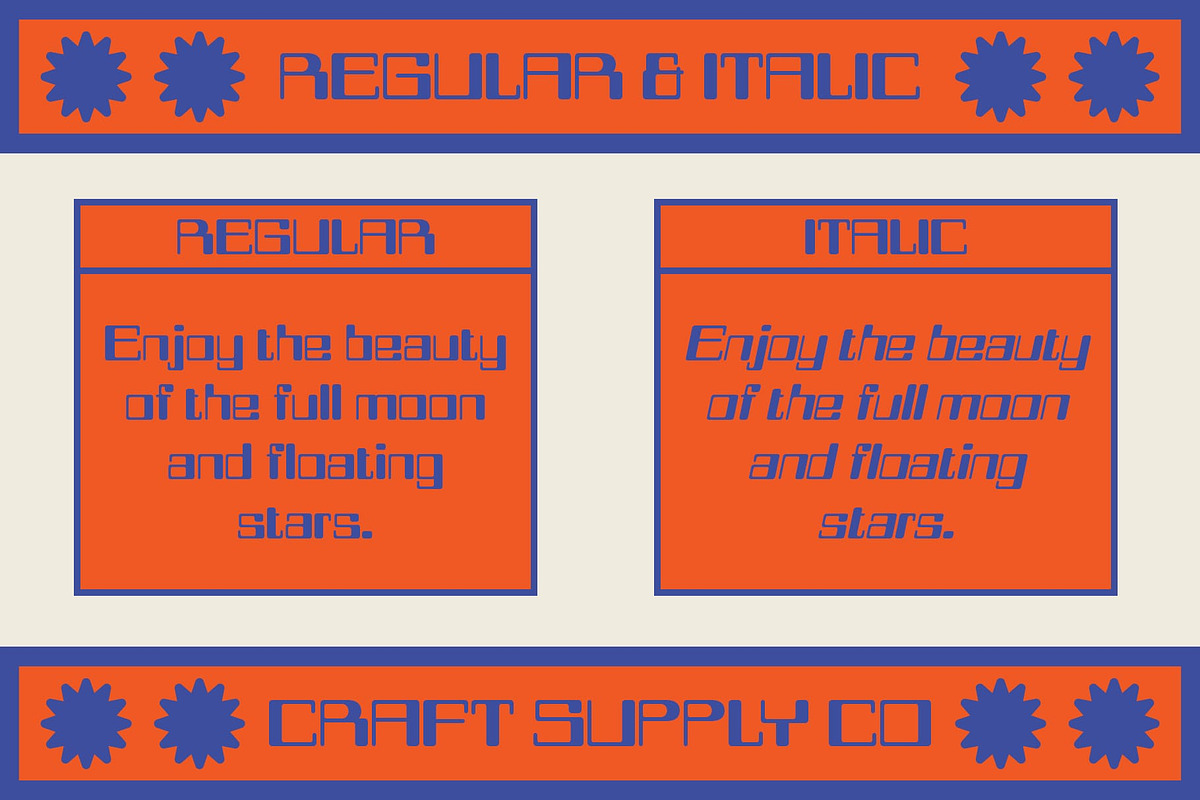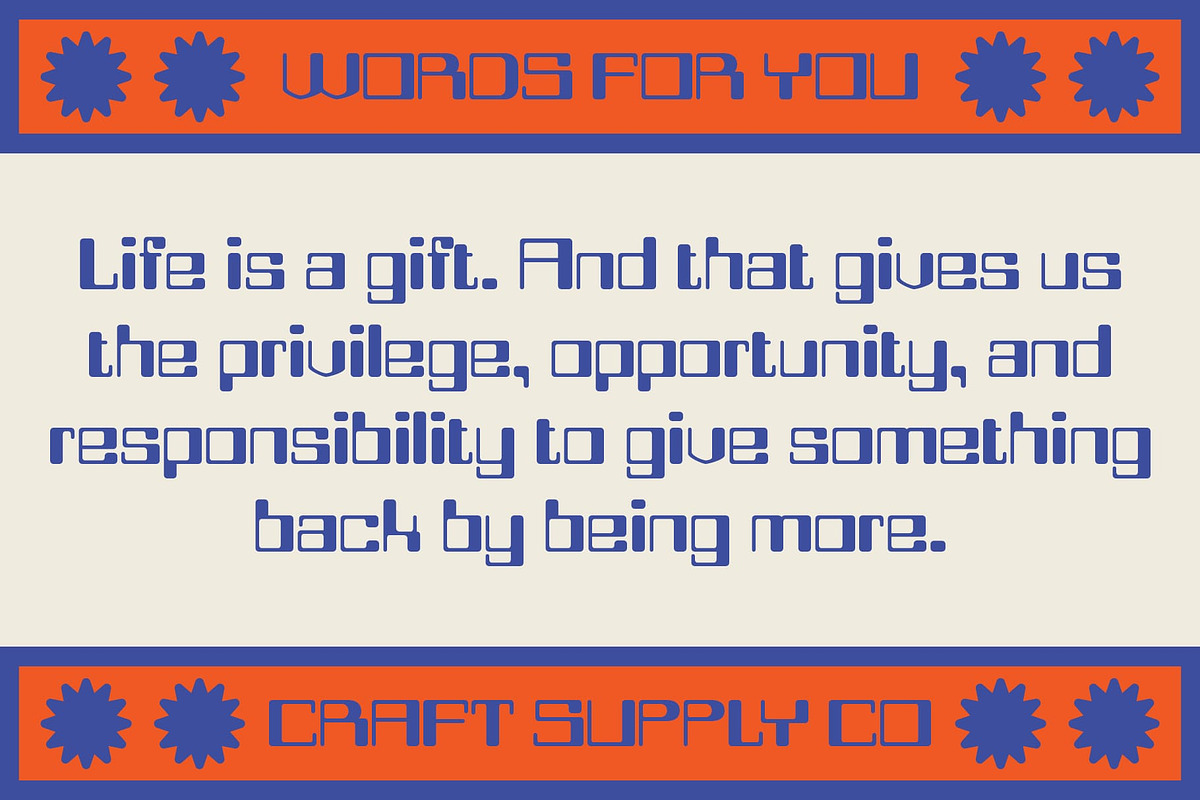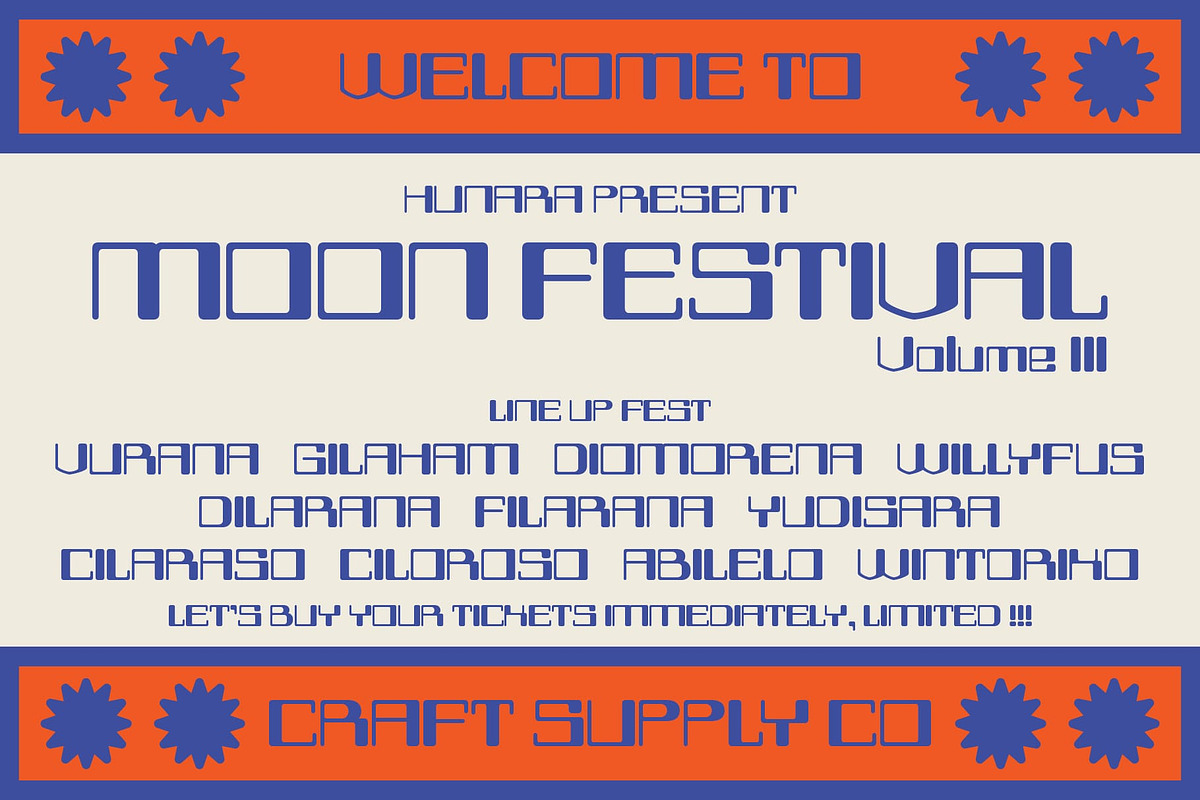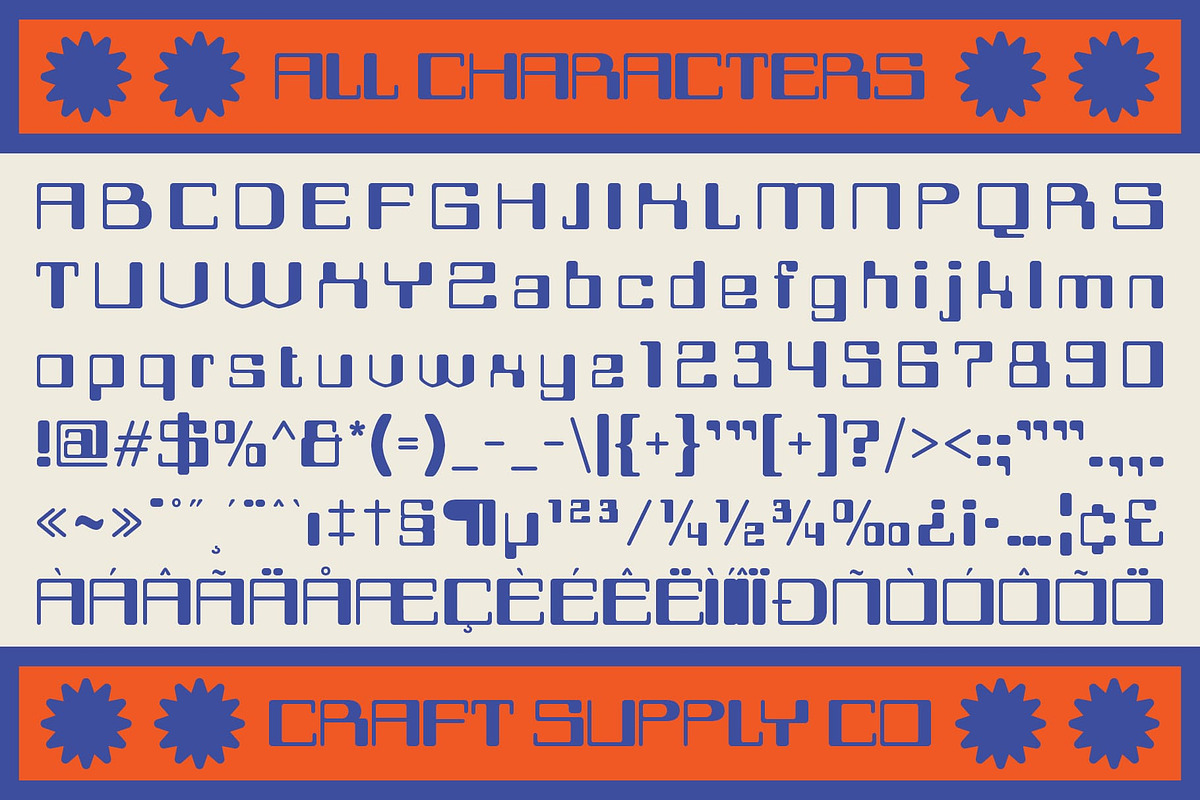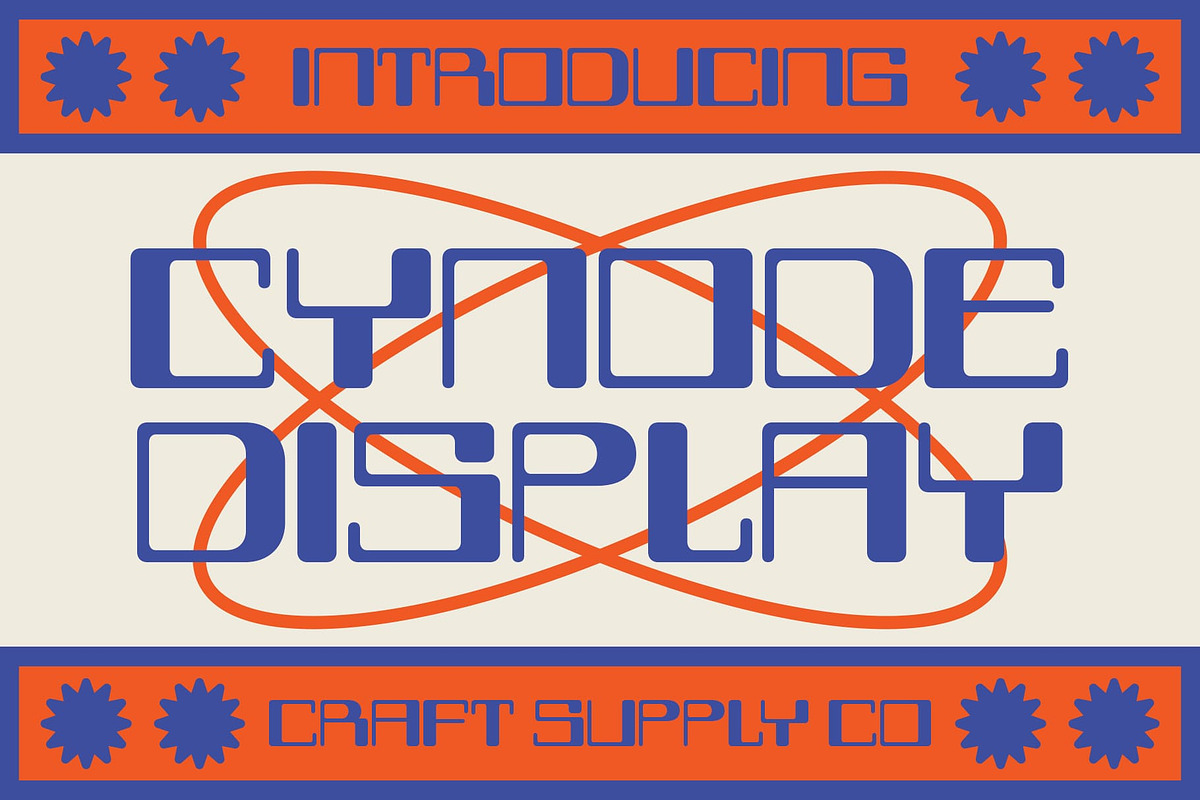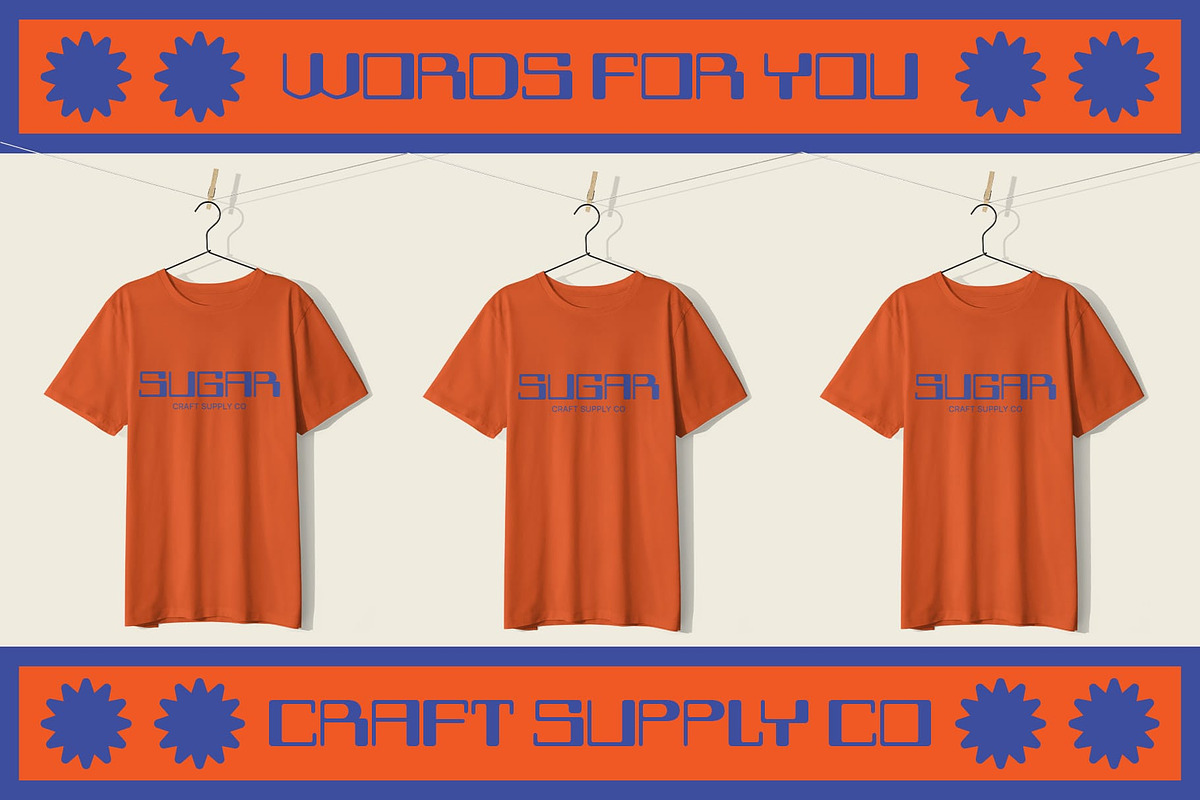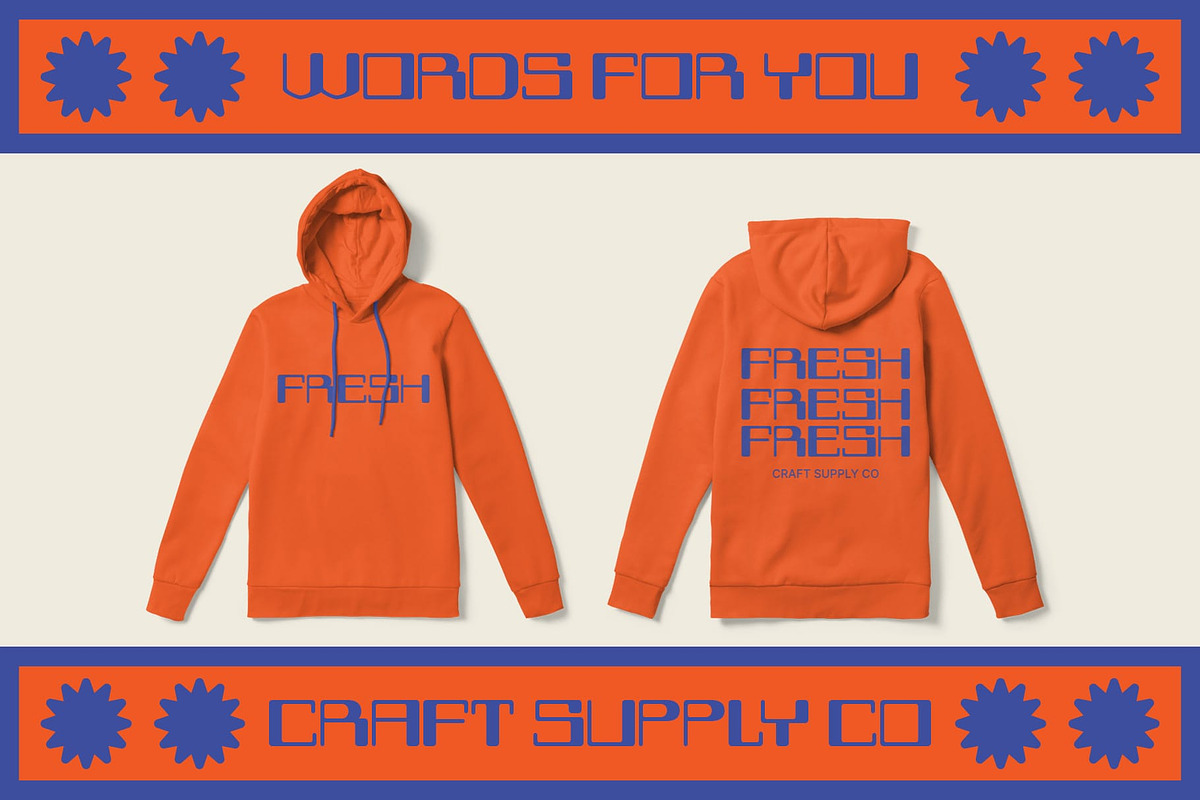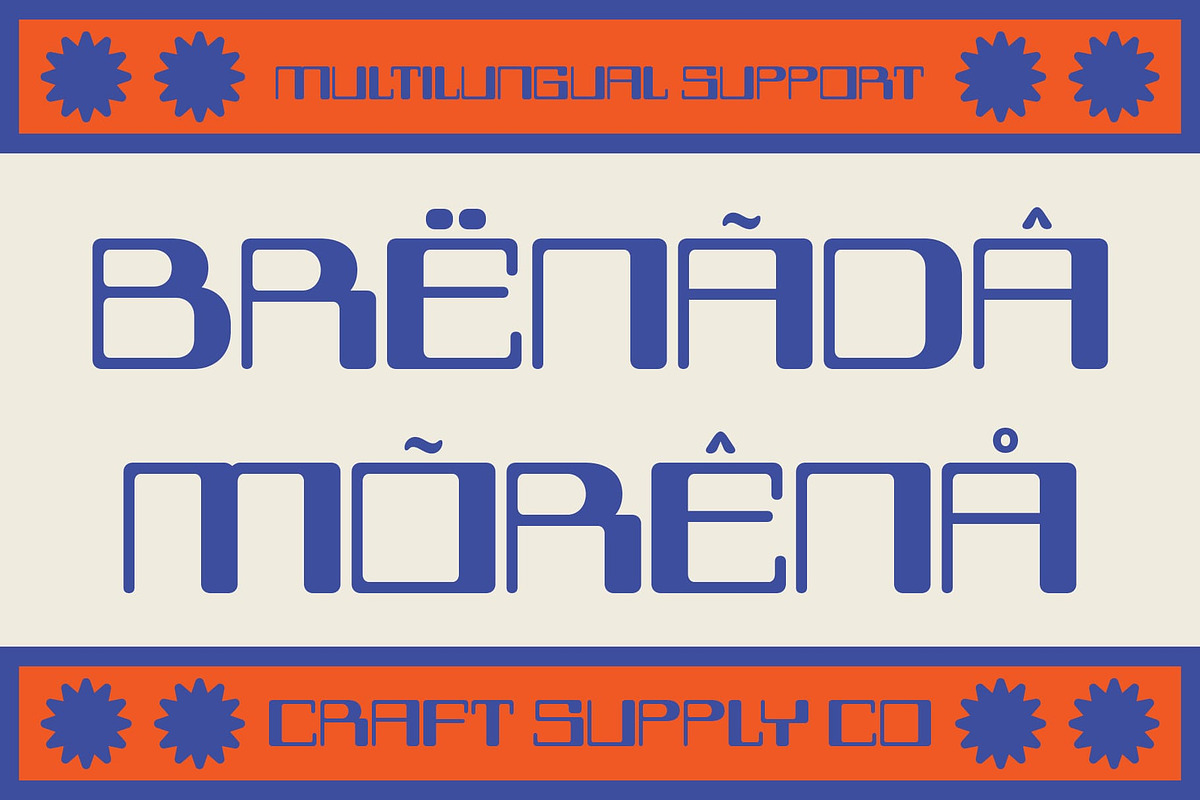
Cynode
Cynode: Embracing Futuristic Geometry
Modern Square Display Cynode presents a modern take on display fonts, characterized by its square-shaped design elements. These bold and angular characters exude a sense of contemporary style, making them ideal for projects seeking a sleek, cutting-edge aesthetic.
Inspired by Future Living Drawing inspiration from the envisioned lifestyles of the future, This font captures the essence of innovation and progress. Its geometric forms reflect the geometric landscapes of tomorrow, embodying the spirit of advancement and forward-thinking design.
Sleek and Minimalist With its clean lines and minimalist aesthetics, This font offers a sleek appearance that aligns perfectly with modern design sensibilities. Its simplicity enhances readability while maintaining visual impact, ensuring that your message is conveyed effectively and stylishly.
Ideal for Futuristic Projects This font is the perfect choice for projects that aim to convey a futuristic vibe. Whether used in branding, digital interfaces, or signage, its bold presence makes a statement about the future, setting the tone for cutting-edge creativity and innovation.
- Cynode Regular
- Cynode Italic